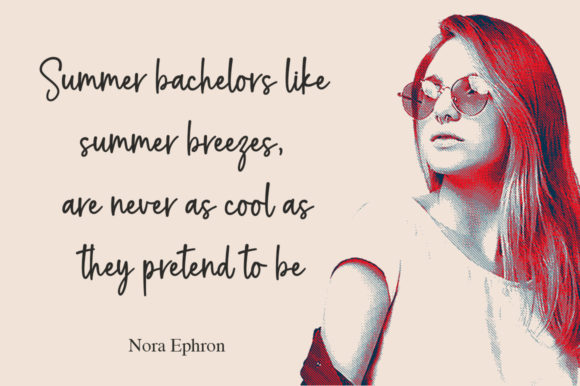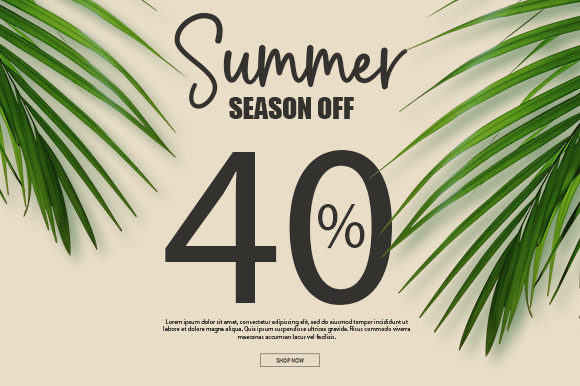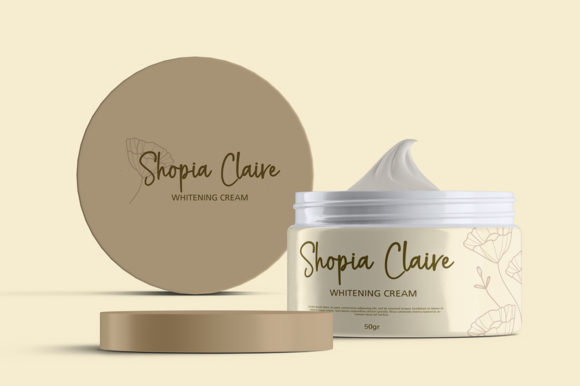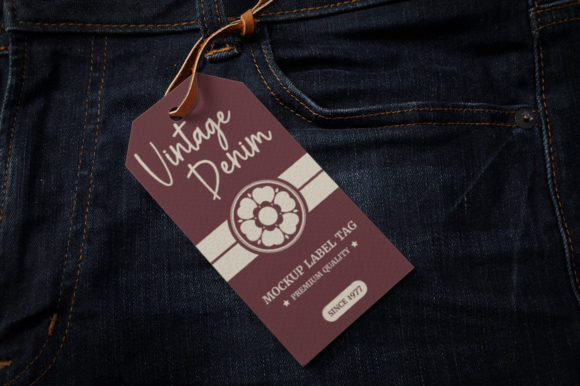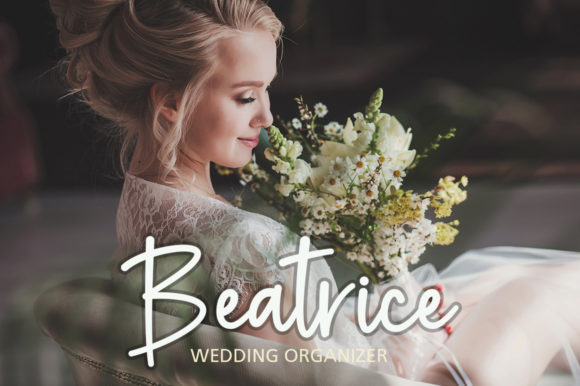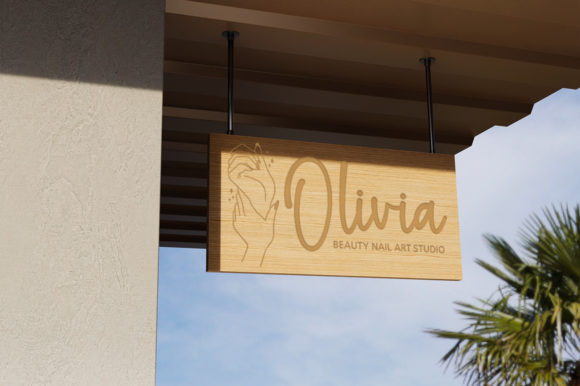
Introducing Brooklyn Font: The Perfect Choice for Romantic Designs
Are you a designer or crafter looking for a font that exudes sweetness and joy? Look no further than Brooklyn Font, a dainty and flowing handwritten font that’s perfect for adding a romantic, personalized touch to your designs. In this article, we’ll take a closer look at Brooklyn Font and explore its features, uses, and benefits.
What is Brooklyn Font?
Brooklyn Font is a beautiful, handwritten font that’s designed to evoke a sense of romance and whimsy. Its delicate, flowing lines and sweet, cheerful vibe make it an ideal choice for a variety of design projects, from wedding invitations and cards to branding and packaging.
Key Features of Brooklyn Font
- Dainty and flowing lines: Brooklyn Font features delicate, cursive lines that give it a light, airy feel.
- Sweet and joyful vibe: This font is designed to evoke a sense of happiness and romance, making it perfect for designs that require a personal touch.
- Handwritten style: Brooklyn Font has a beautifully handwritten style that’s perfect for adding a touch of personality to your designs.
- Versatile: This font can be used for a wide range of design projects, from wedding invitations and cards to branding and packaging.
Uses for Brooklyn Font
Brooklyn Font is a versatile font that can be used for a variety of design projects, including:
- Wedding invitations and cards: This font is perfect for creating beautiful, romantic wedding invitations and cards that will make your loved ones feel special.
- Branding and packaging: Brooklyn Font can be used to add a touch of personality to your brand’s packaging and marketing materials.
- Stationery and journals: This font is ideal for creating beautiful, handmade stationery and journals that make perfect gifts or personal keepsakes.
- Social media graphics: Brooklyn Font can be used to create eye-catching social media graphics that will help your brand stand out.
Benefits of Using Brooklyn Font
There are many benefits to using Brooklyn Font in your designs, including:
- Unique and eye-catching: This font is sure to grab attention and add a touch of personality to your designs.
- Easy to read: Despite its delicate lines, Brooklyn Font is easy to read, even at small sizes.
- Customizable: This font can be easily customized to fit your brand’s style and personality.
- Supports multiple languages: Brooklyn Font supports multiple languages, making it a great choice for designers who work with international clients.
Tips for Using Brooklyn Font
Here are a few tips for using Brooklyn Font in your designs:
- Pair with bold fonts: Brooklyn Font pairs beautifully with bold, sans-serif fonts that provide a nice contrast to its delicate lines.
- Use for headings and titles: This font is perfect for headings and titles, where its unique style can really shine.
- Add a personal touch: Brooklyn Font is all about adding a personal touch to your designs, so don’t be afraid to experiment and add your own unique flair.
Brooklyn Font is a beautiful, handwritten font that’s perfect for designers and crafters who want to add a touch of romance and whimsy to their designs. With its delicate lines, sweet vibe, and versatility, this font is sure to become a favorite in your design arsenal. Whether you’re creating wedding invitations, branding materials, or social media graphics, Brooklyn Font is the perfect choice for adding a personal touch to your designs.